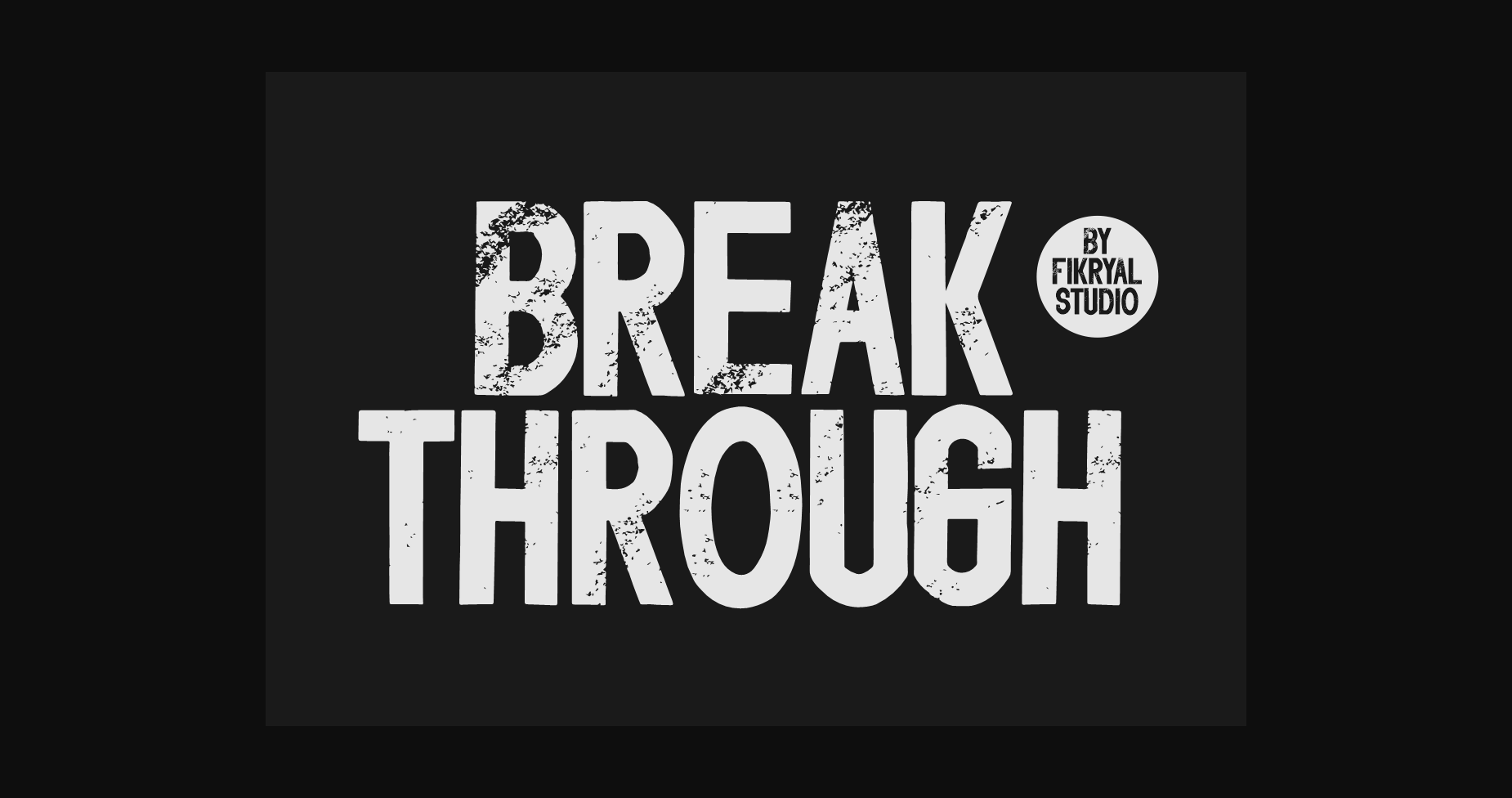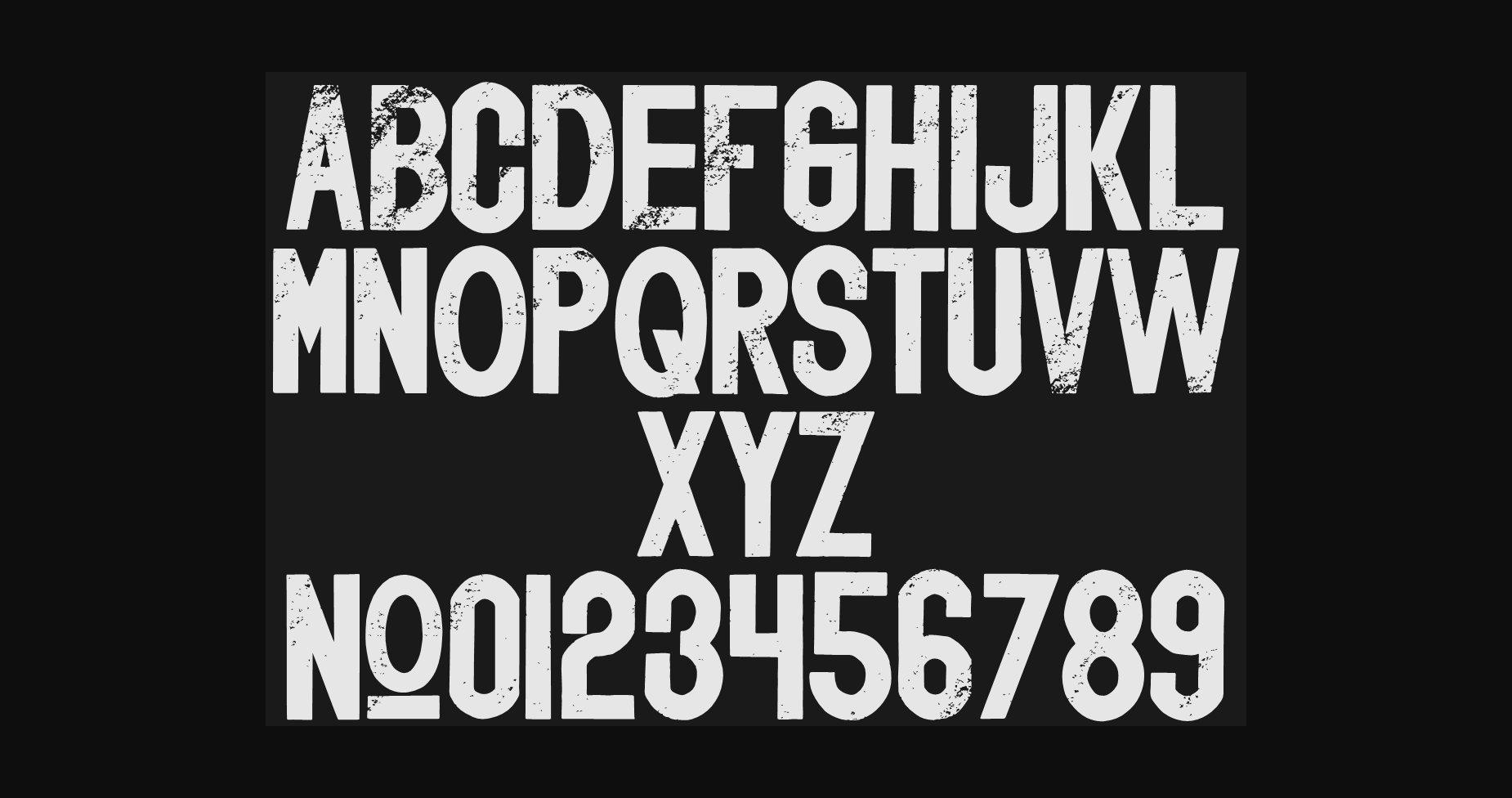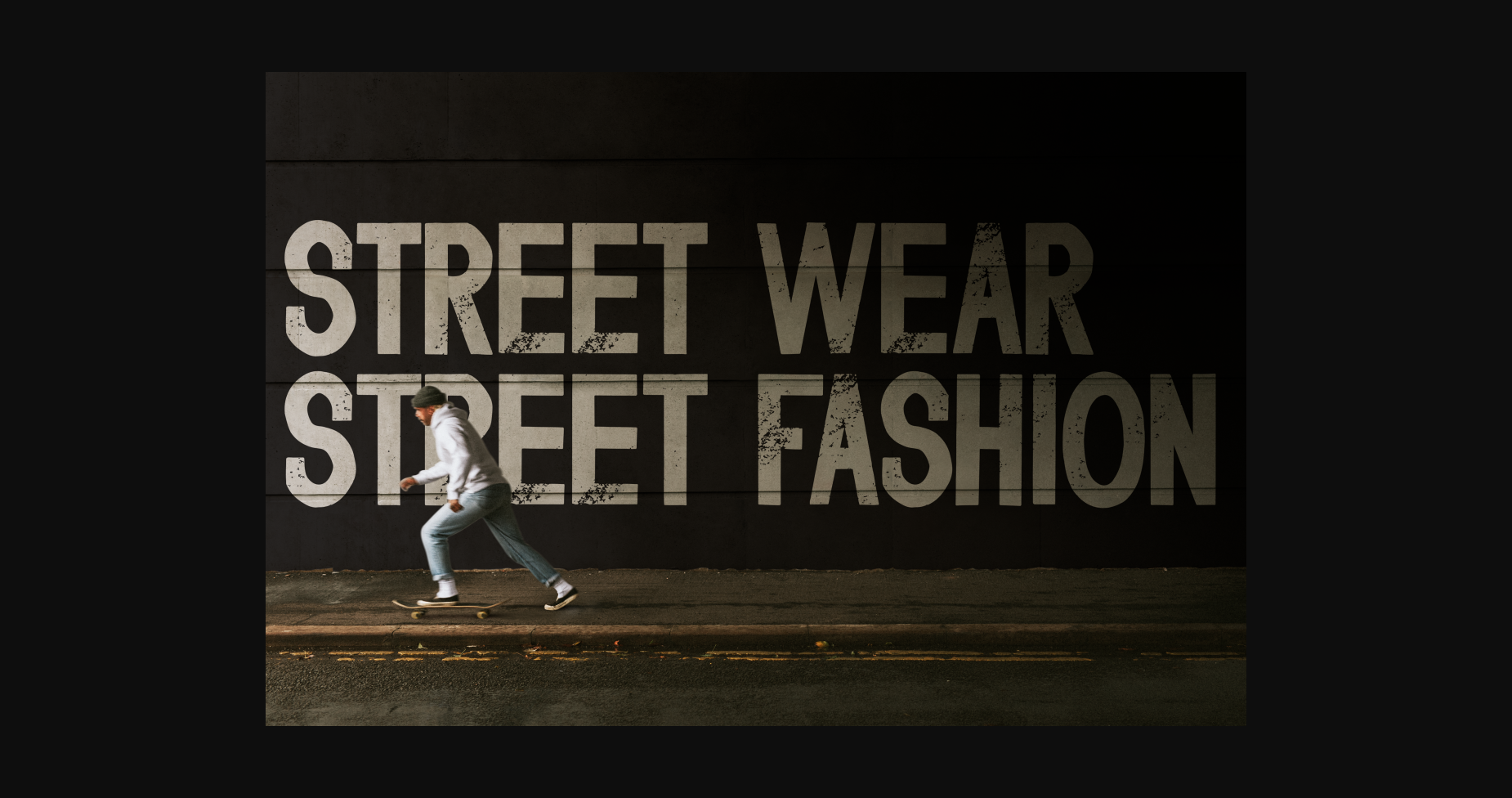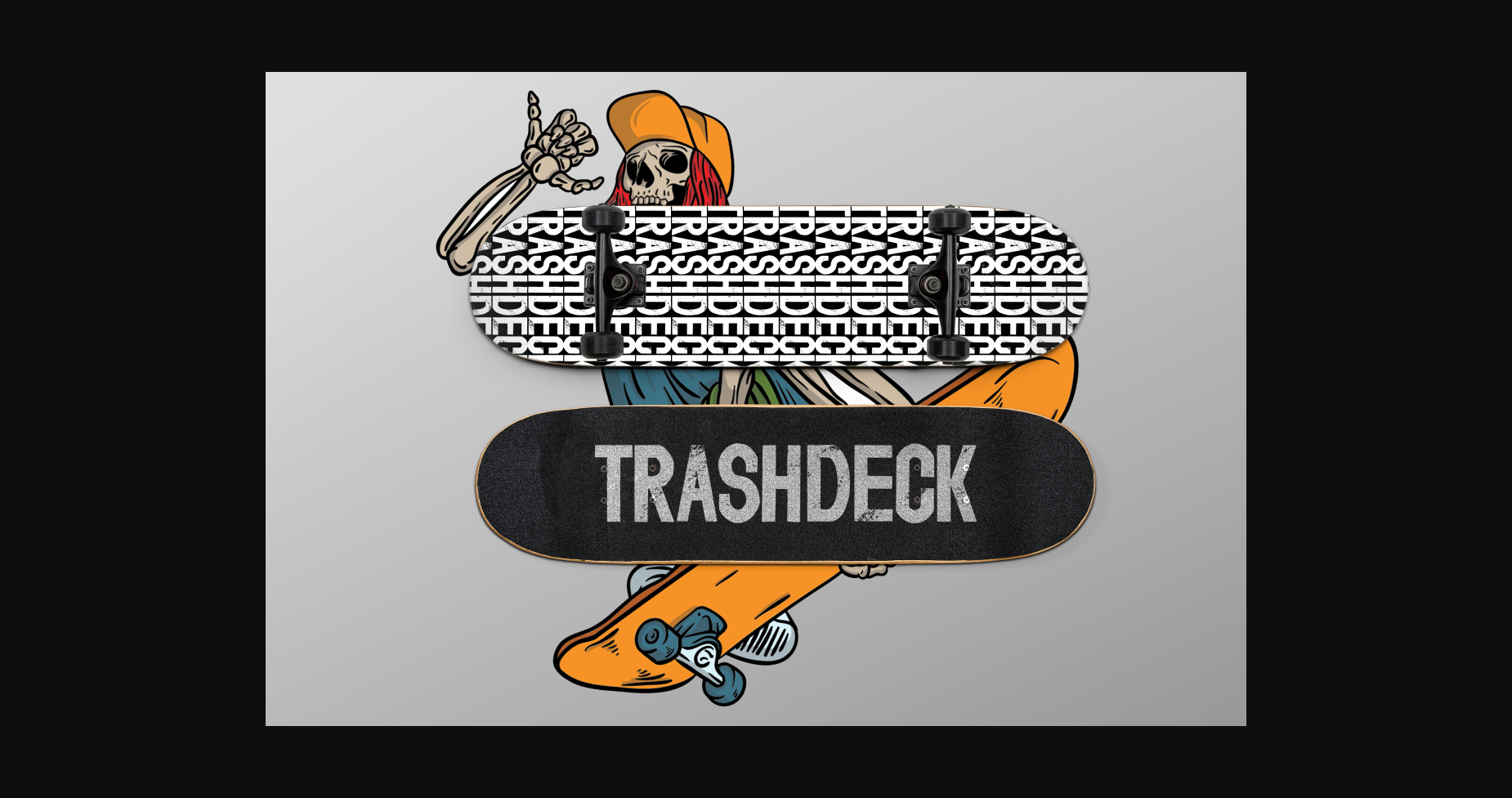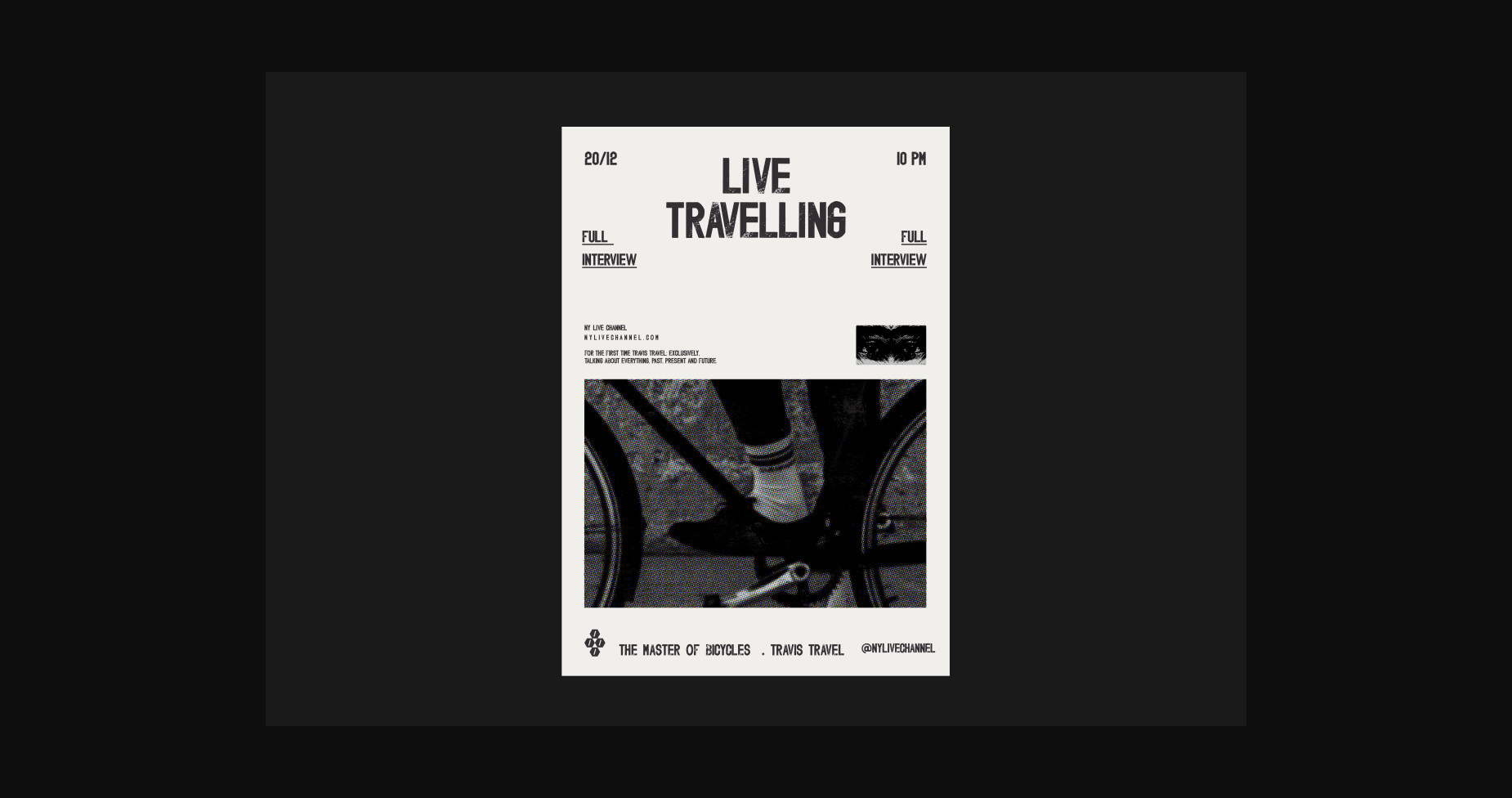
About Breakthrough Font
Breakthrough is a modern and cool sans-serif font. It’s perfect for logos, branding, title, social media posts, advertisements, product packaging, product designs, label, photography, watermark, special event, magazine, web designs, etc.